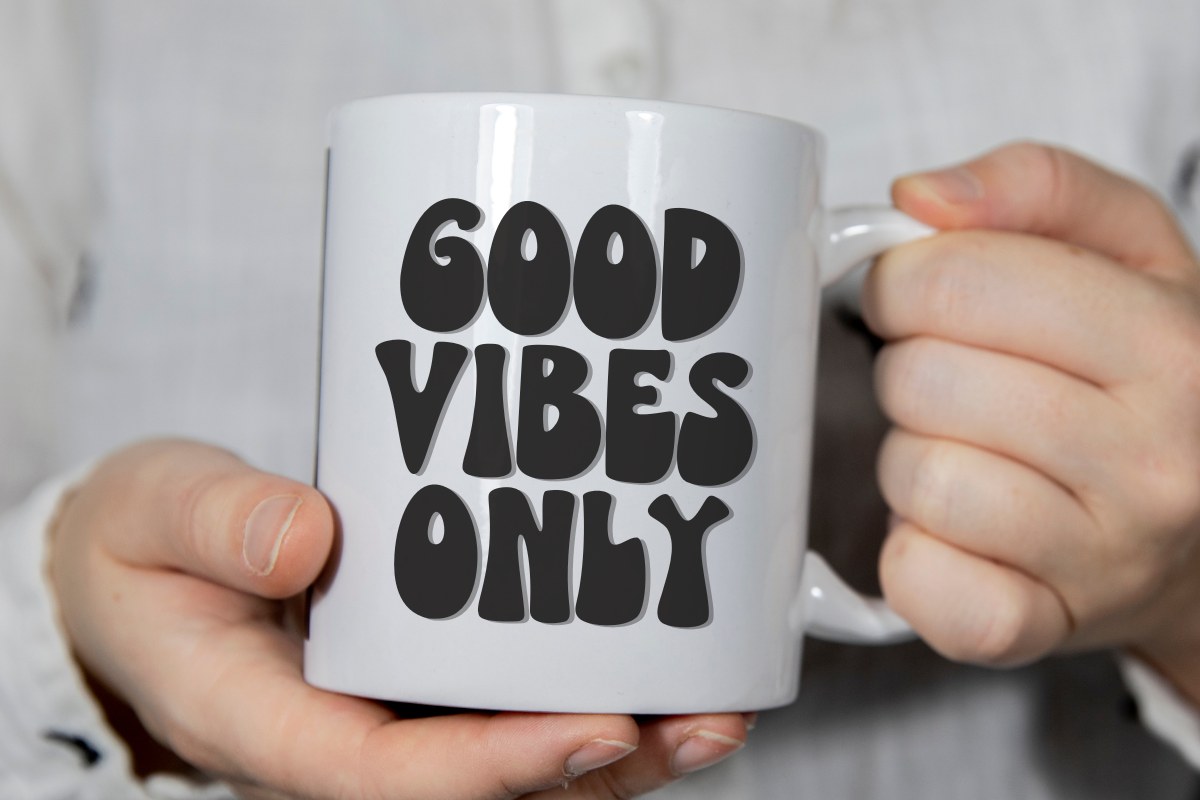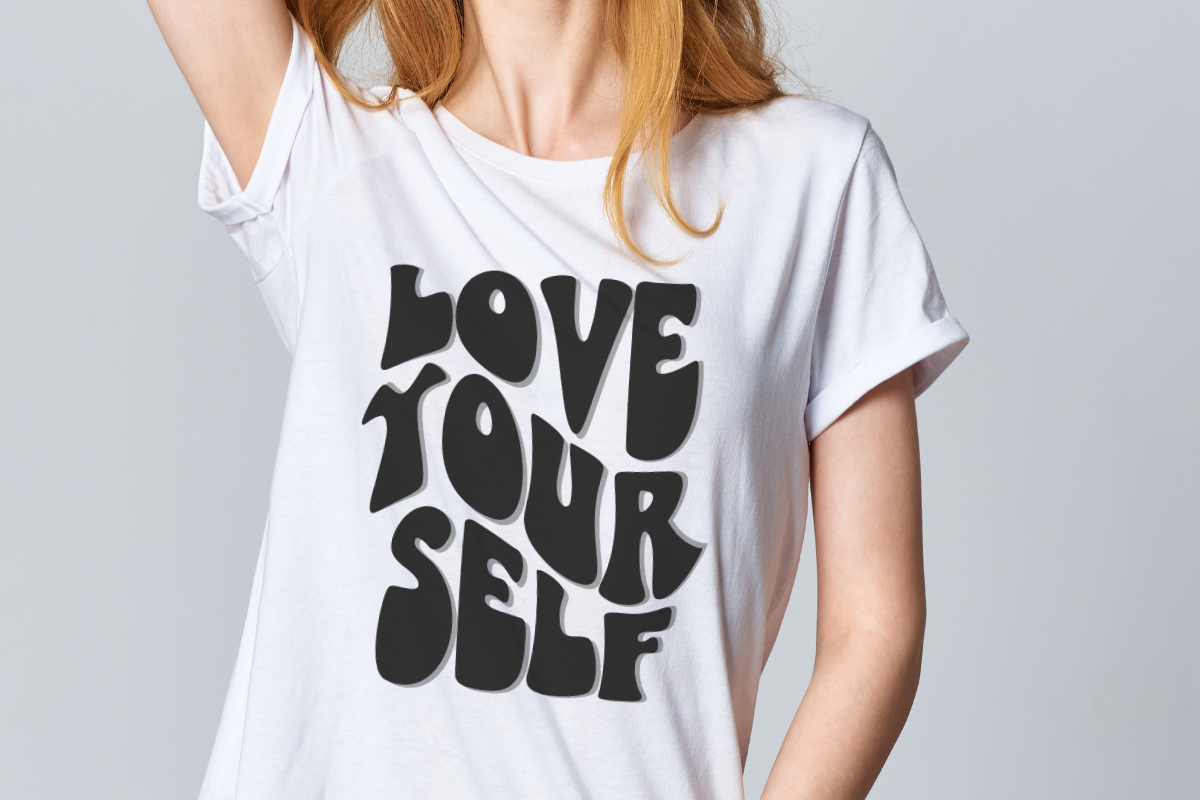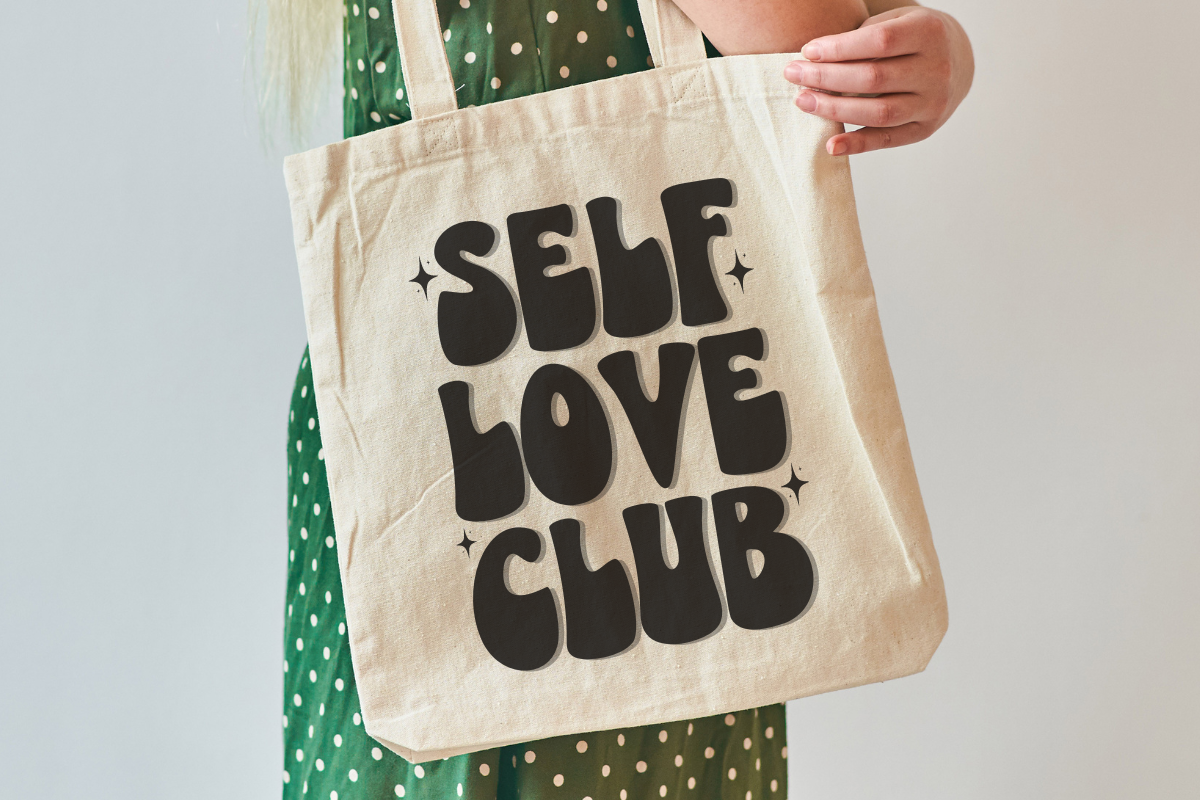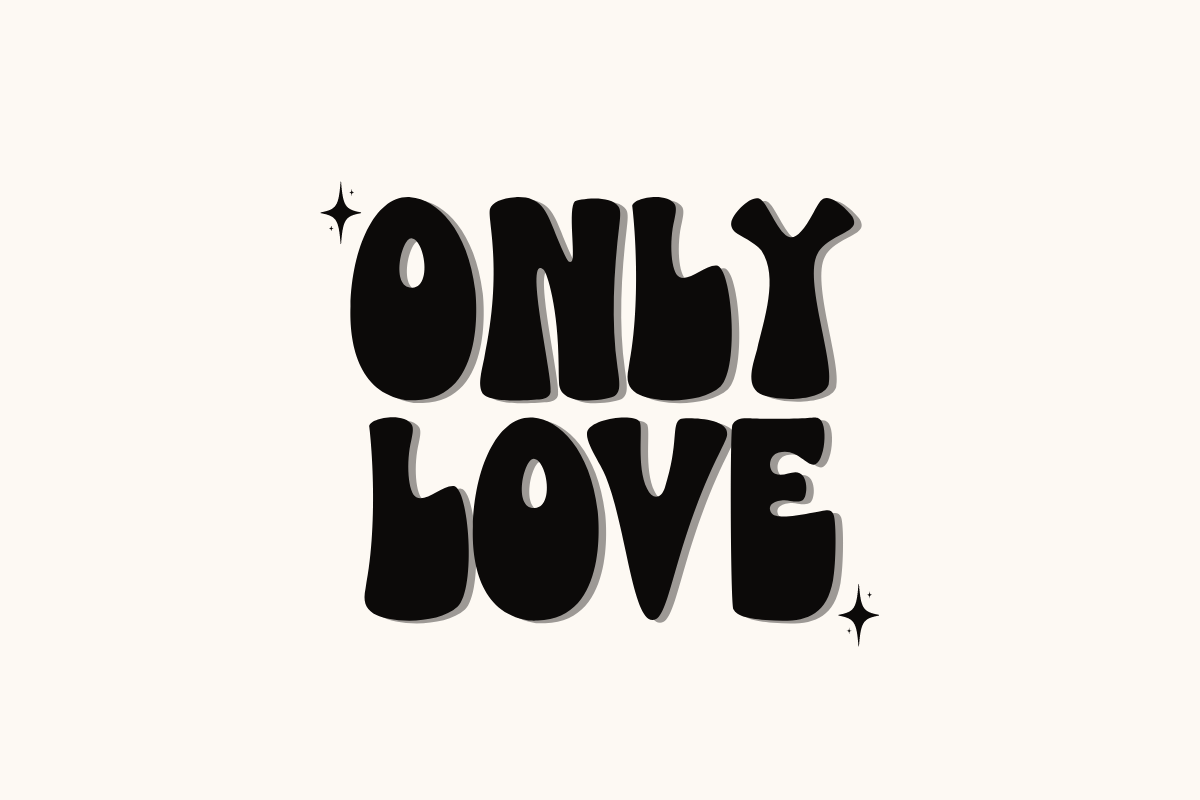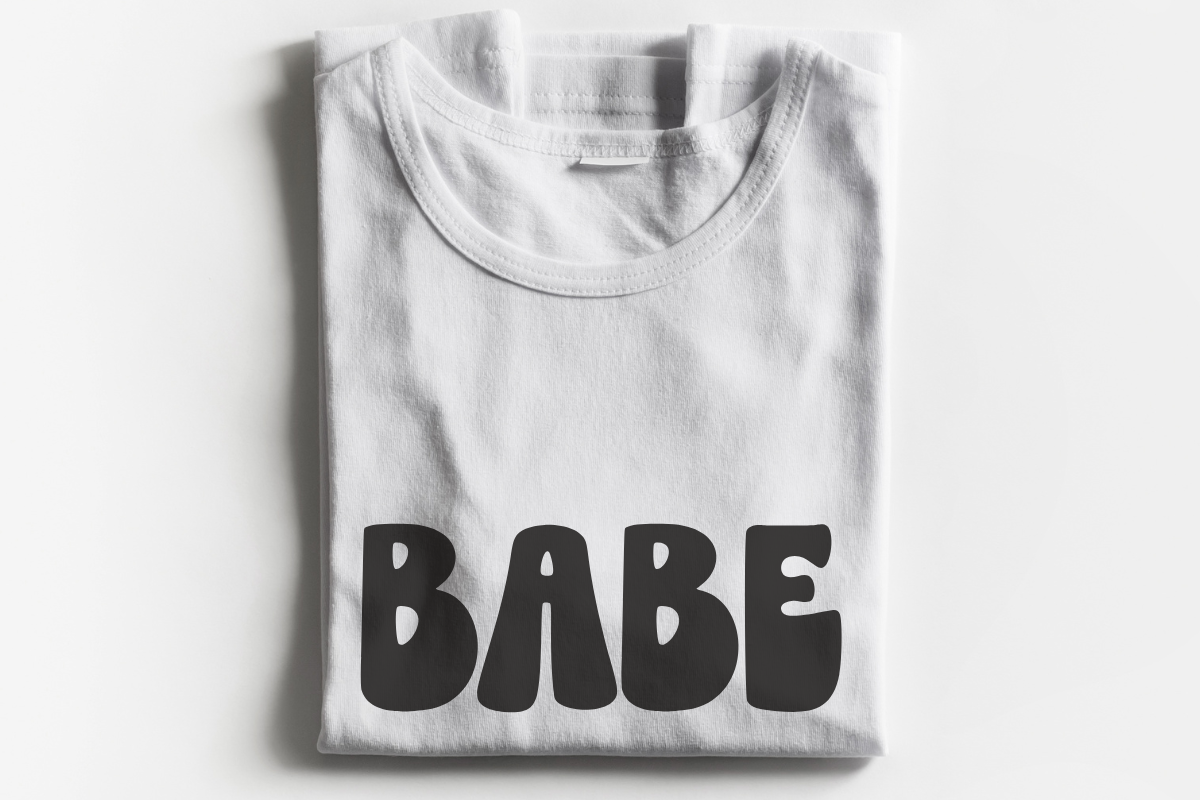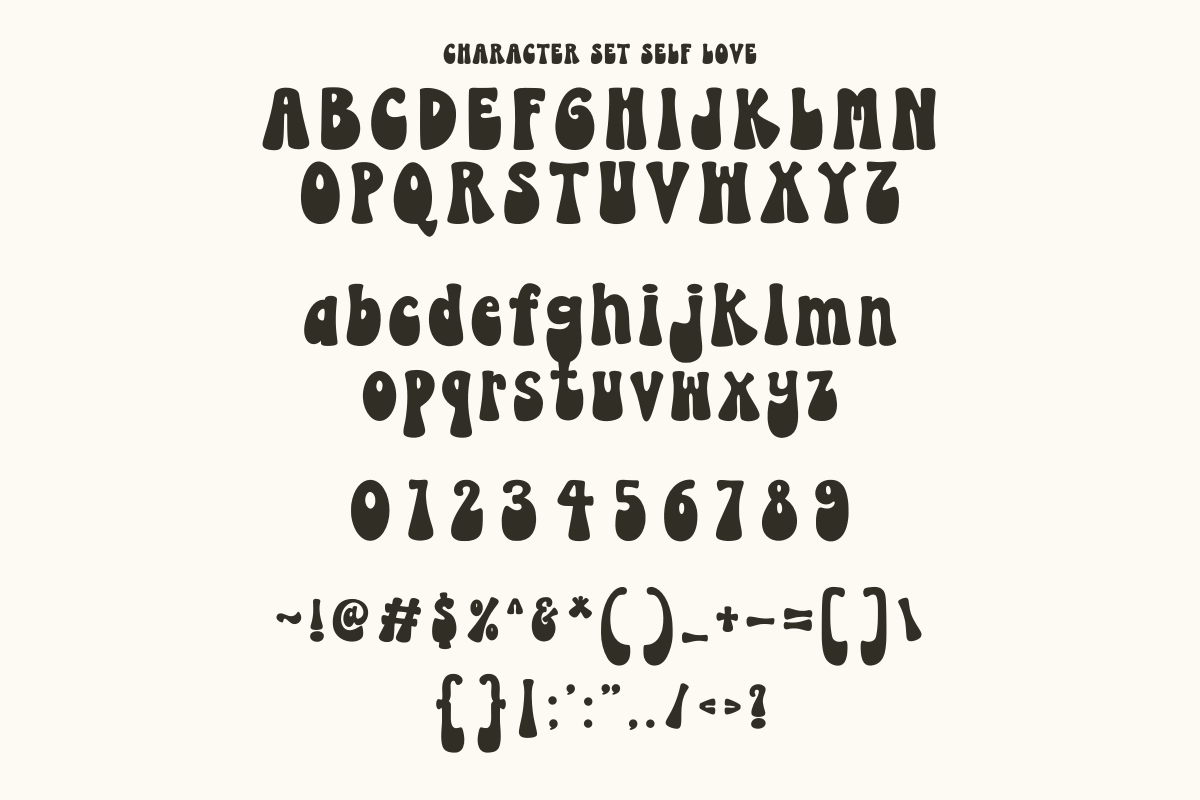
Self Love
With its unique retro flair, Self Love beautifully enhances craft projects, adds stylish sophistication to t-shirt designs, and injects personality into tote bags. This versatile font breathes life into inspirational quotes, makes bold statements on posters, and elevates your branding experience. Perfectly adaptable, Self Love adds quintessential charm not only to headlines but also brings a distinctive elegance to tumblers and mugs. Experience the multifaceted beauty of the Self Love font, and cherish the endless possibilities it brings.